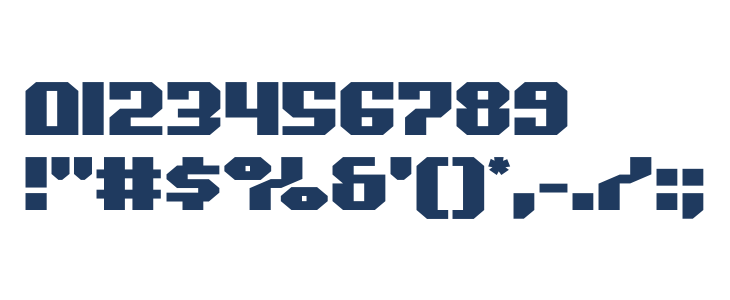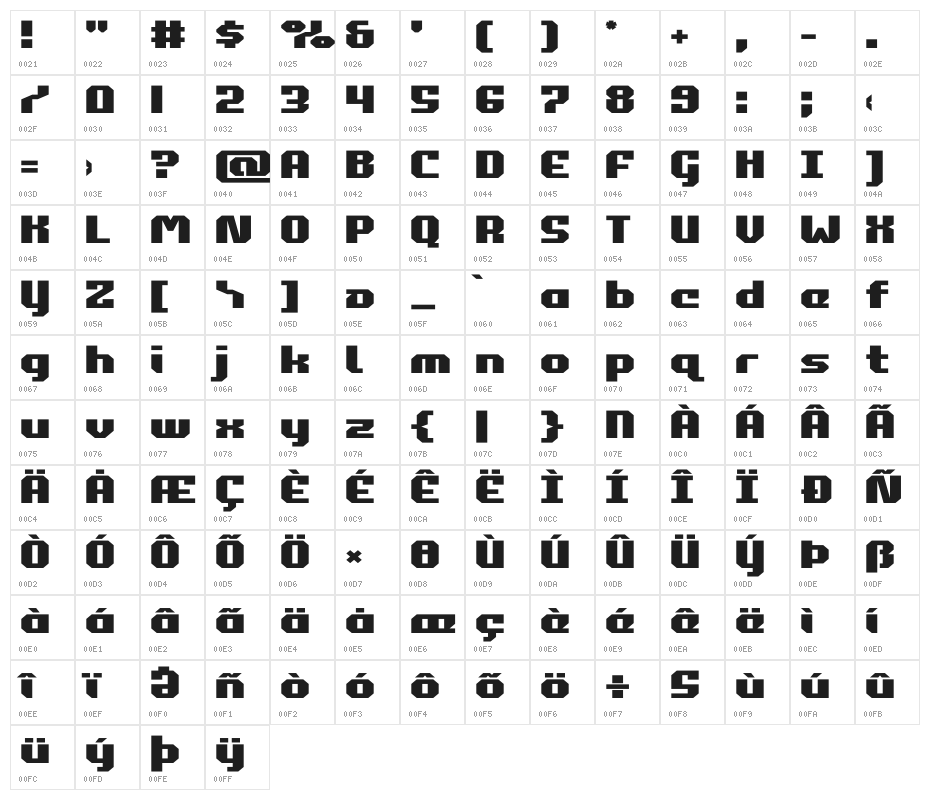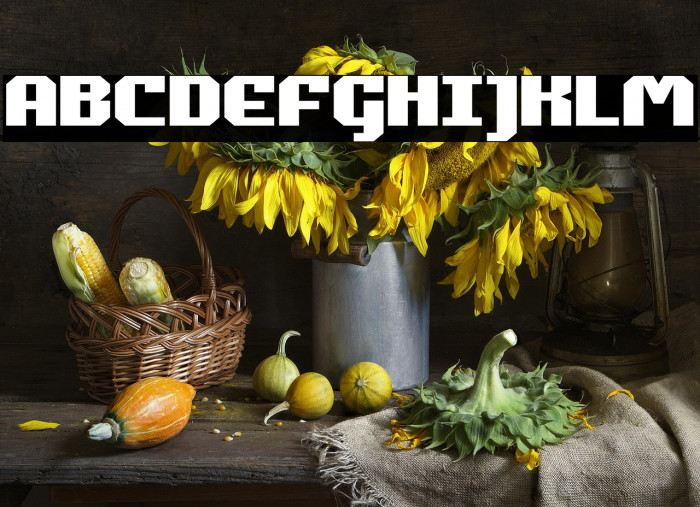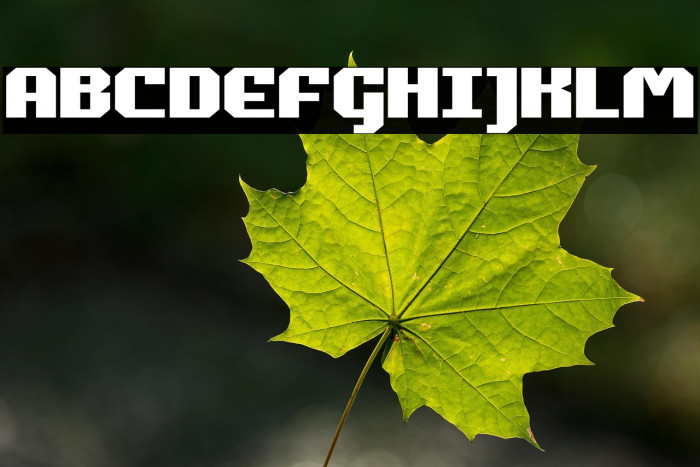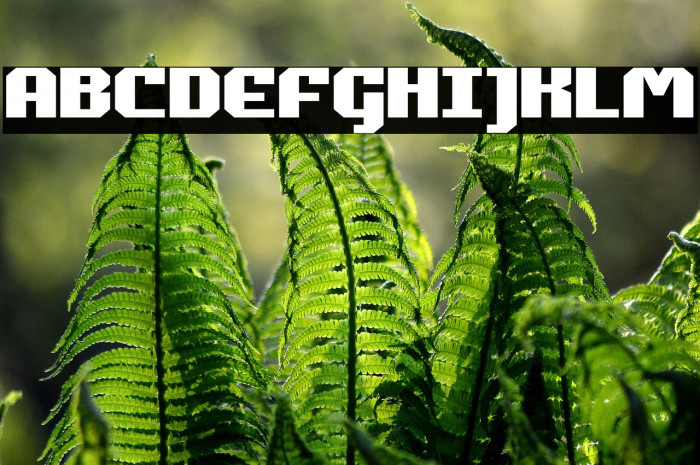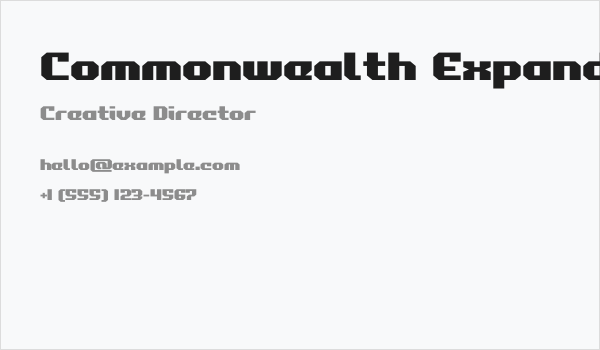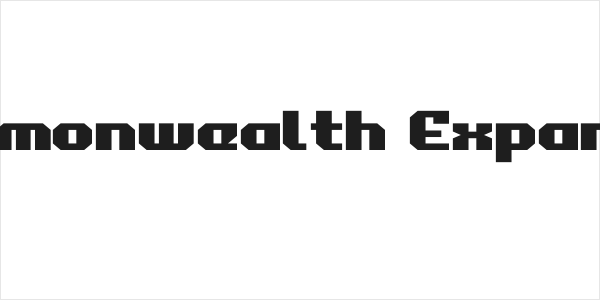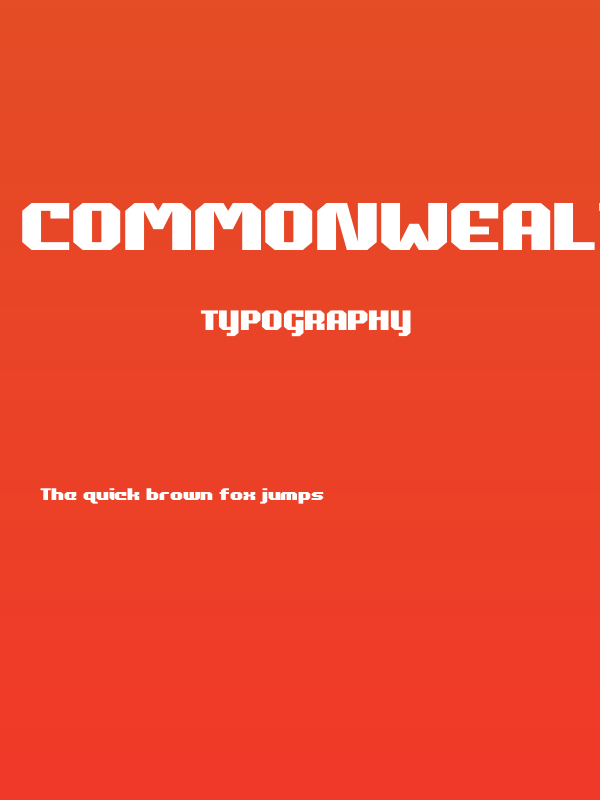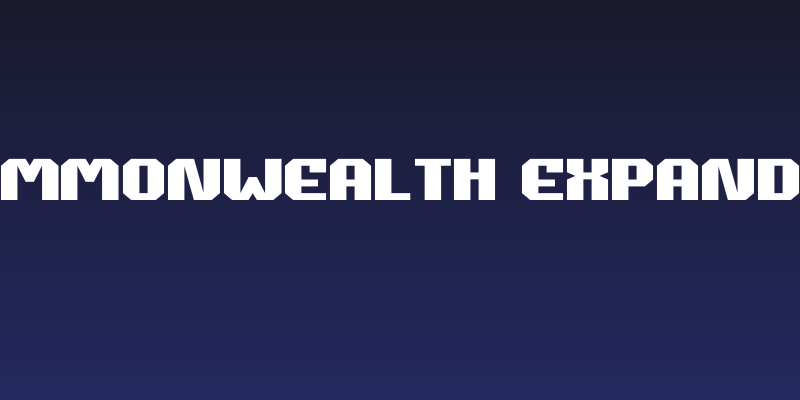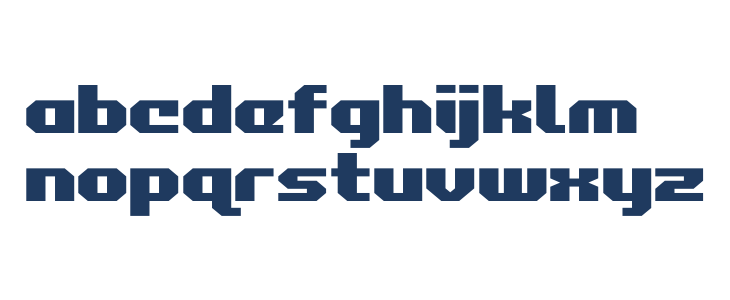
Commonwealth Expanded Font
Commonwealth Expanded Description
This typeface features a bold and geometric design with a strong presence. The characters are constructed with angular lines and sharp edges, giving it a modern and industrial feel. The uppercase and lowercase letters maintain a consistent style, with a uniform height and width that creates a cohesive look. The numerals and special characters are designed to match the boldness of the alphabet, ensuring a seamless integration across all text elements. The font's expanded width allows for a commanding display, making it suitable for attention-grabbing headlines and titles.
| Proposed Projects | Ideal for branding, posters, headlines, and any design requiring a strong, modern aesthetic. |